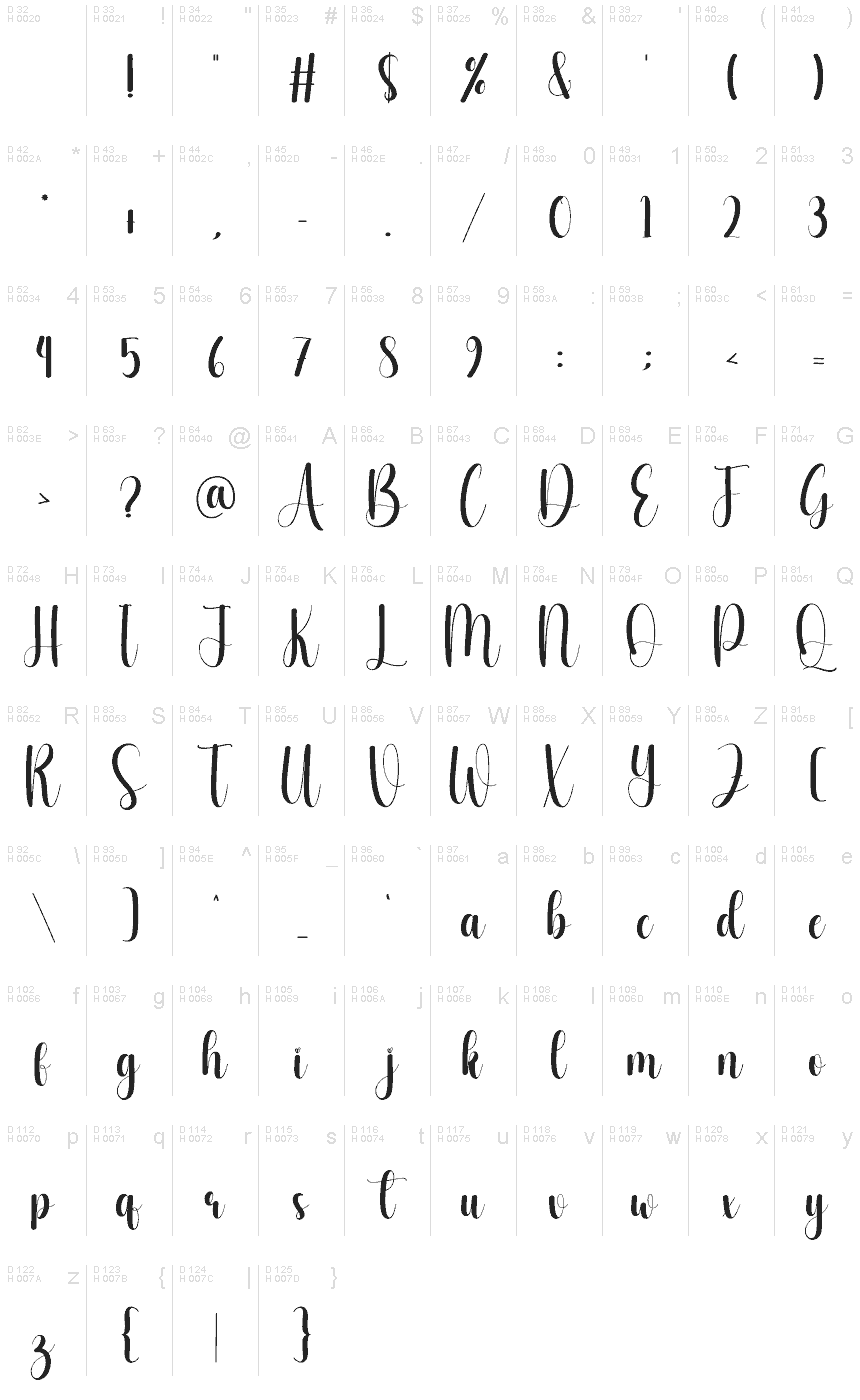
Tough
Tough font by Scratchones is an exquisite example of modern calligraphy, with an elegant and feminine style. Its condensed appearance gives it a unique expressive flair that combines both decorative aspects and professional integrity. This free calligraphy font sets itself apart with its delicate features which can elevate any design project.
Use Tough typeface for signs with a customized look which includes badges, labels, logos, titles, headlines, apparel designs as well as websites and applications. The same attention to detail will allow you to craft unforgettable greeting cards, invitations for a special event and beautiful covers for books or magazine pages.